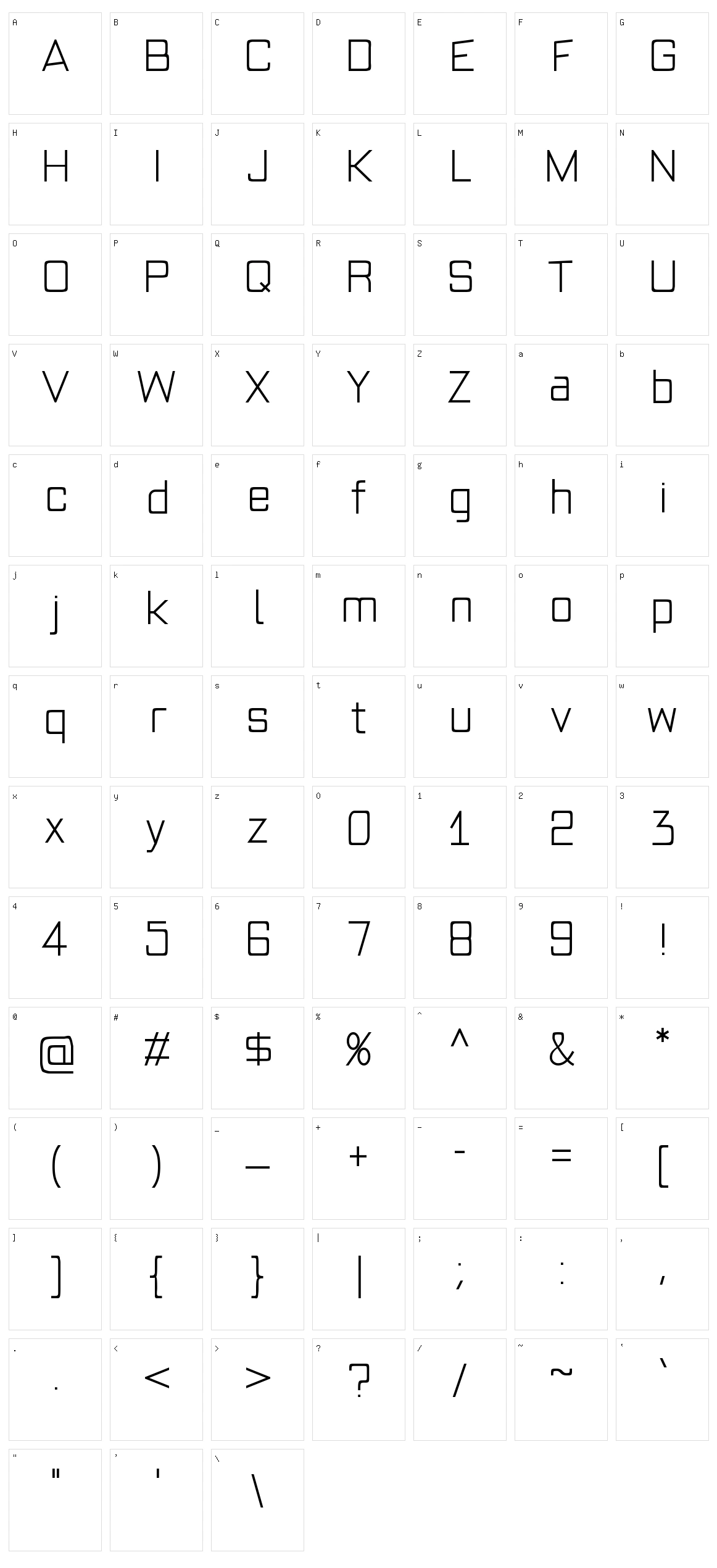
The free font Modern Squared is carefully designed by Shouhardo Kabir Khan, showcasing a thoughtful balance of creativity and usability and falls under the Sans serif font style. When you download the ZIP file, it contains only 9.23 KB of font files, making it lightweight and quick to download. Please review the license details below to understand permitted usage and distribution rights. If license information is not available, we recommend using this font for personal projects only or contacting the author directly for commercial usage permissions.